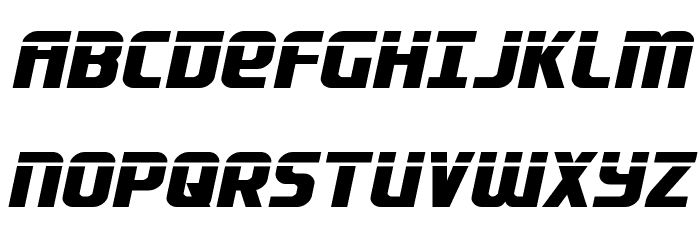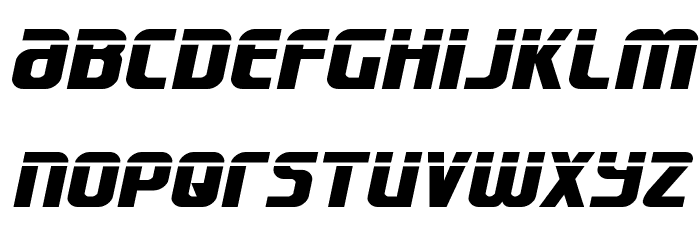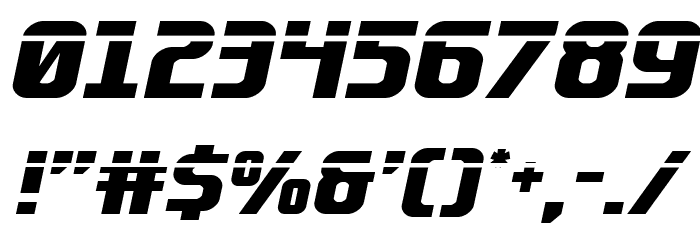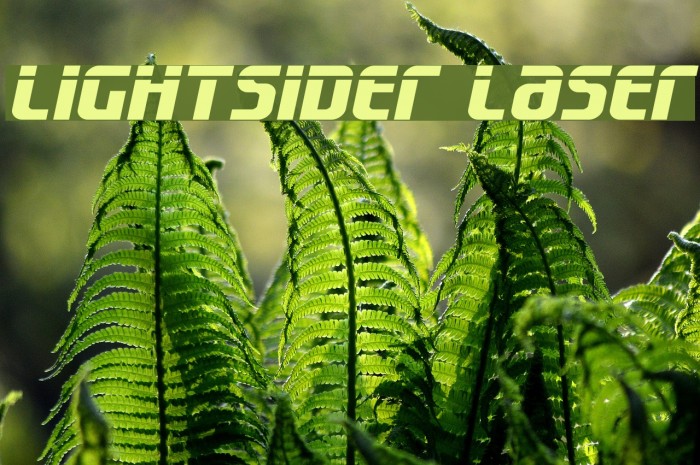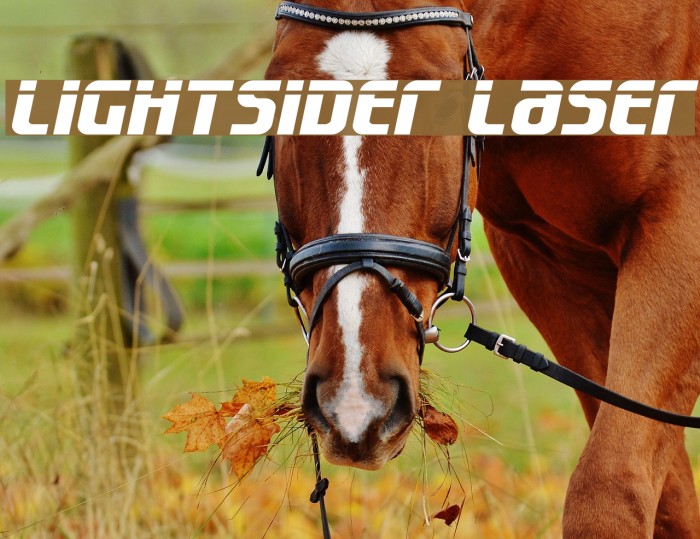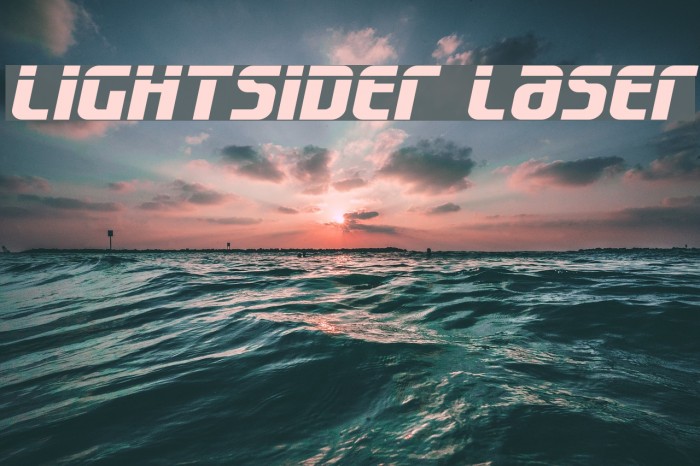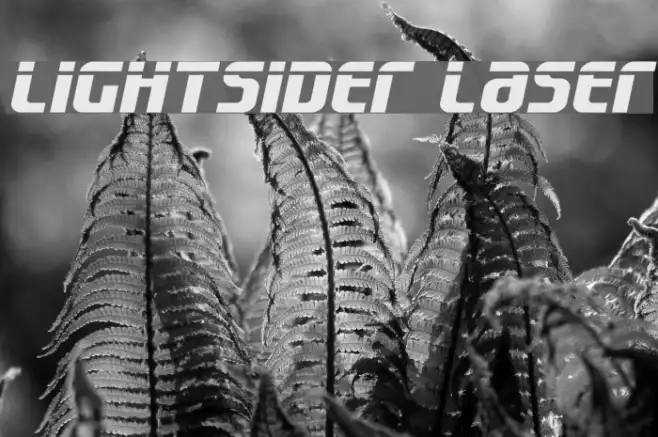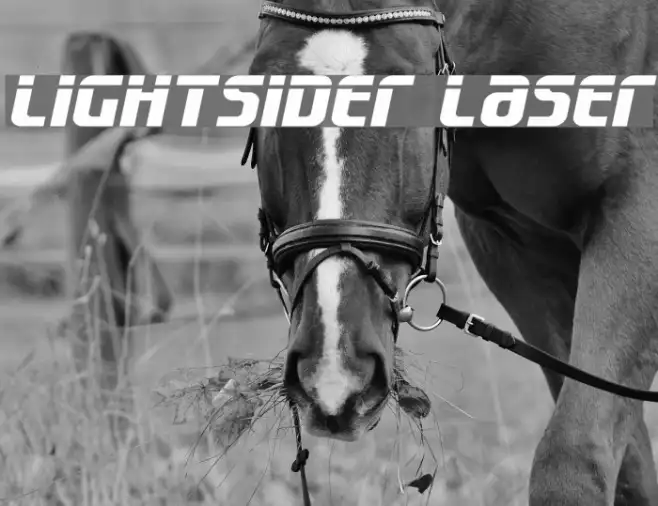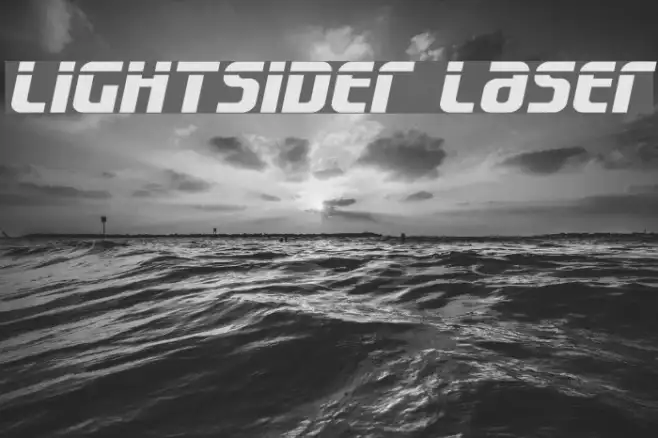
Lightsider Laser Font
This font features a bold, futuristic design with sharp, angular lines and a distinct geometric style. The characters are slightly slanted, giving a sense of motion and dynamism. The uppercase and lowercase letters maintain a consistent style, with a uniform stroke width that adds to its modern appeal. The numbers and special characters are designed to match the overall aesthetic, making it suitable for a variety of digital and print applications. The font's unique style is reminiscent of science fiction themes, making it ideal for projects that require a modern and edgy look.
A bold, futuristic font with sharp, angular lines and a geometric style.
- Proposed Projects: Ideal for sci-fi themed projects, tech branding, video game titles, and futuristic posters.